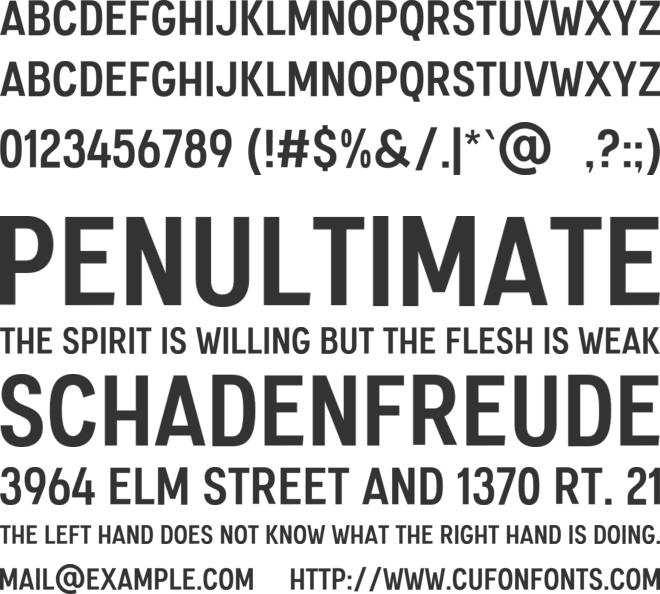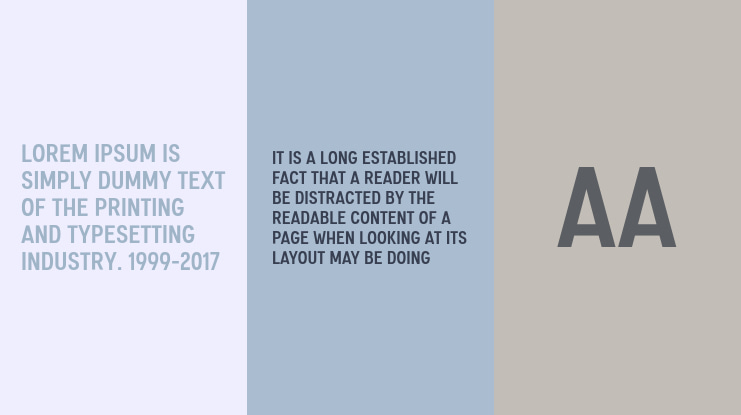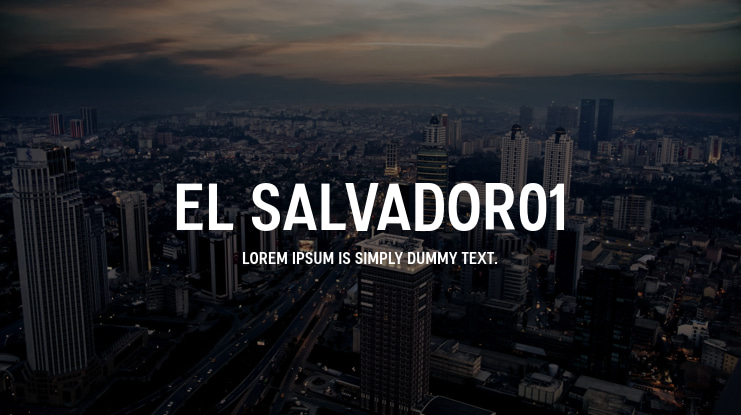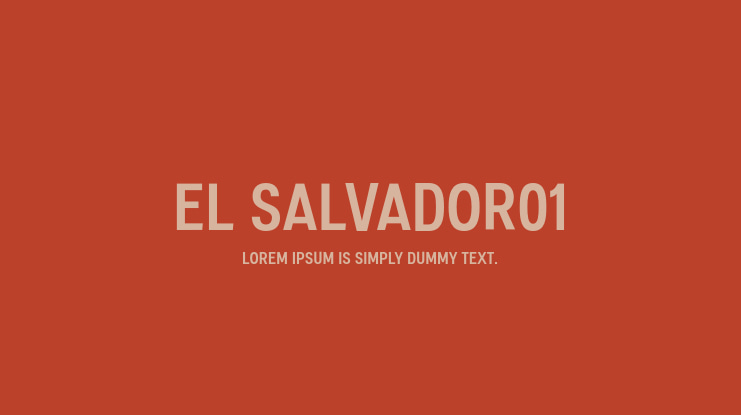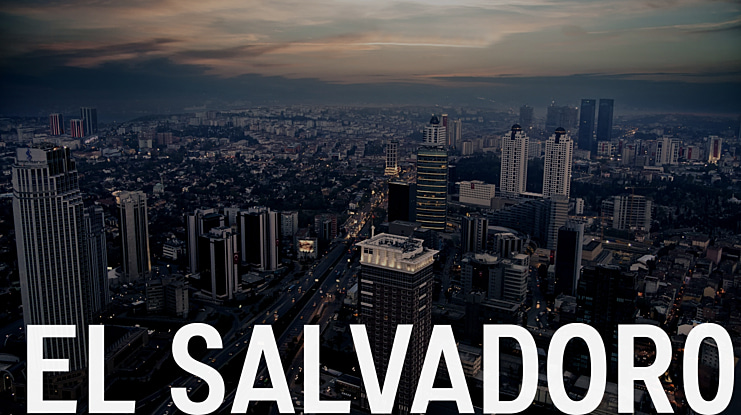
El Salvador is a collection of typefaces designed specifically for football/soccer or other sport jerseys/kits. It features 4+1 different styles of numerals: El Salvador 01, 02, 03, 04, and RE (Rounded Edge). While the numerals differ in the fonts for El Salvador 01-04, the base characters remain the same. The base font for El Salvador RE is also unique. The typeface includes standard punctuation and multilingual characters, making it suitable for various purposes beyond sports with its san serif style as a base font.